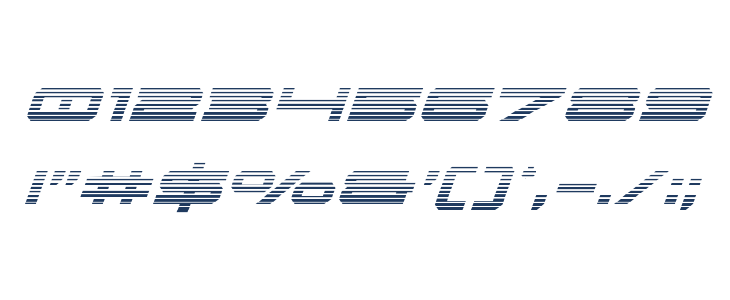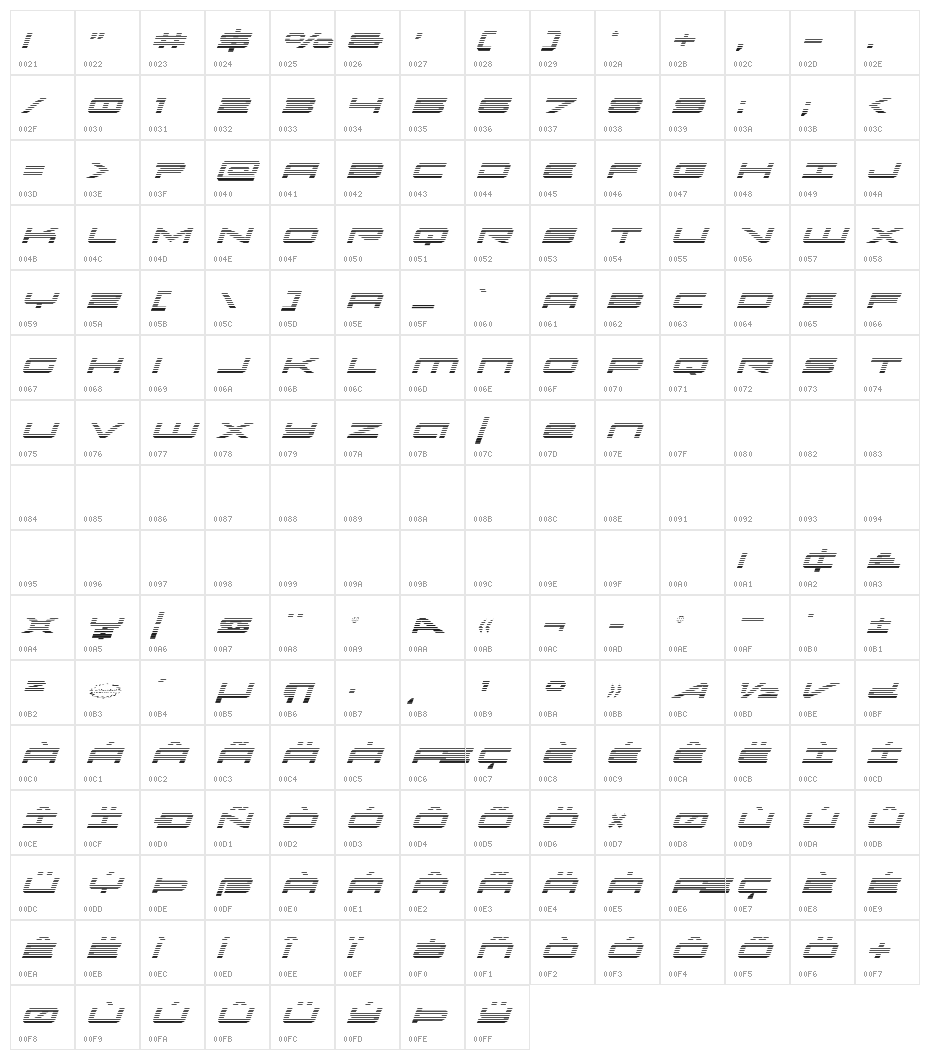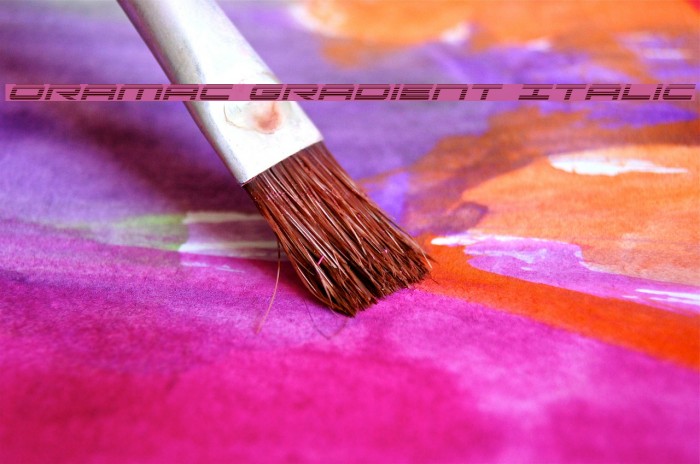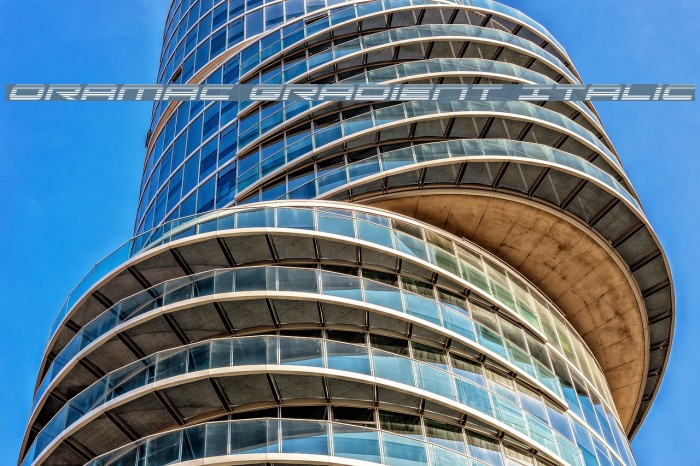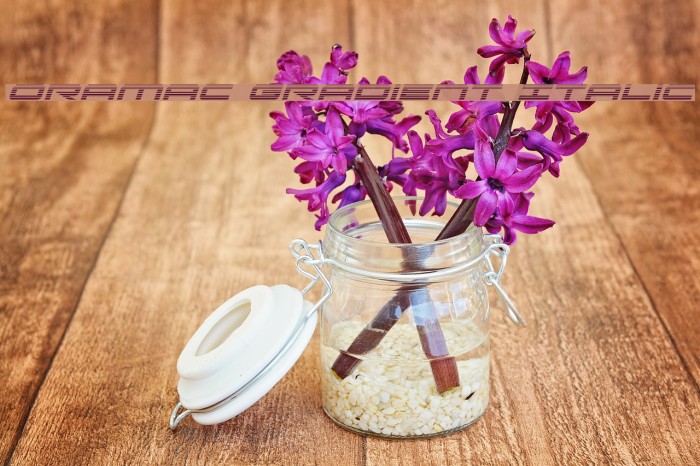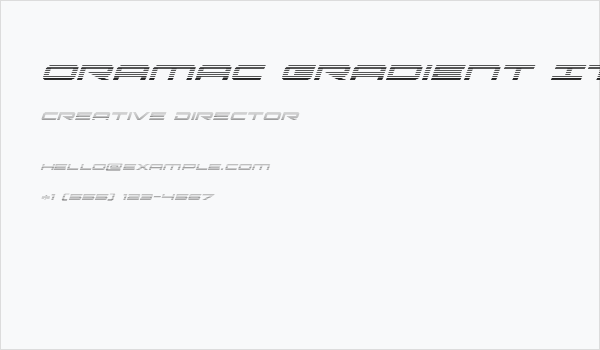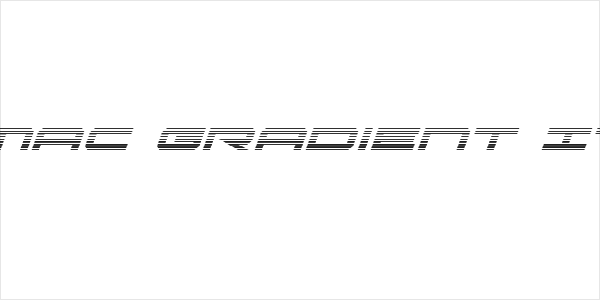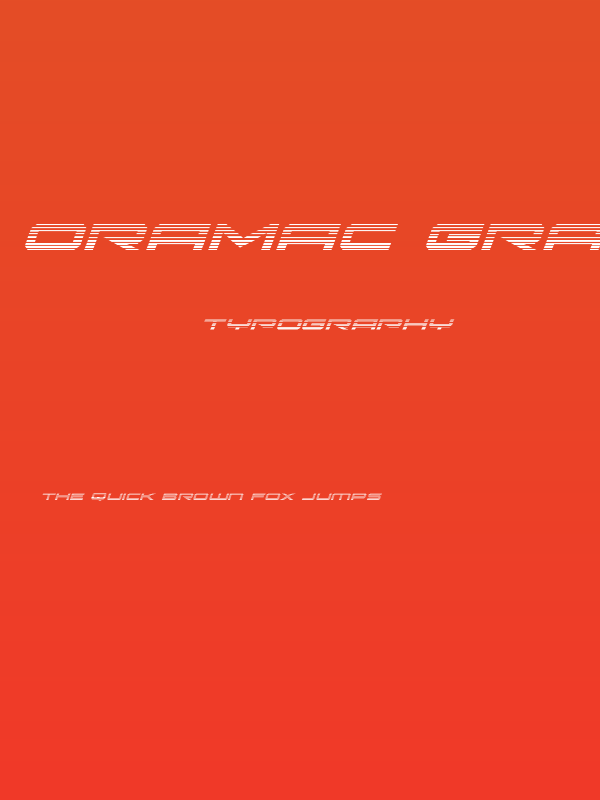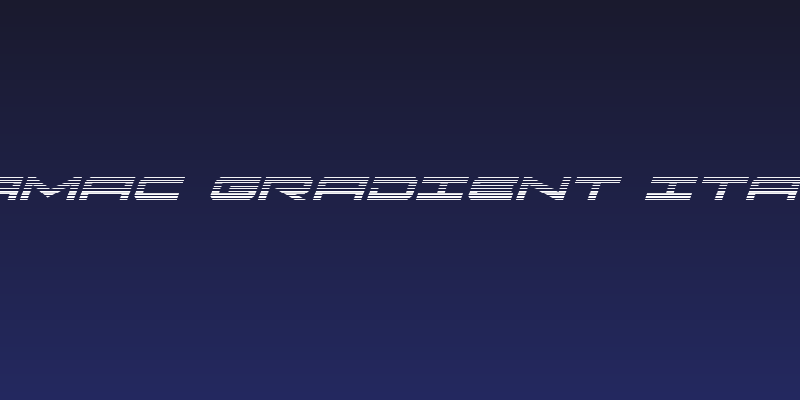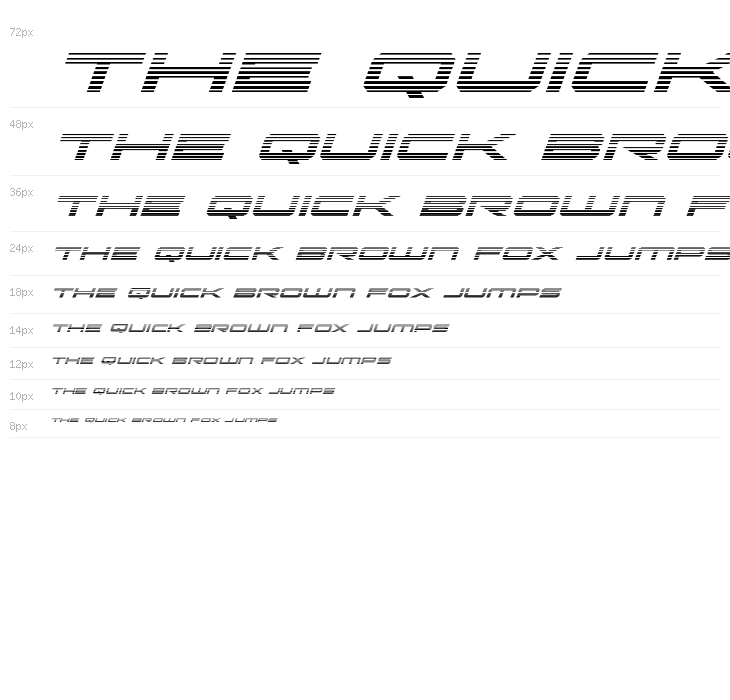
Oramac Gradient Italic Font
Oramac Gradient Italic Description
This font features a modern, futuristic design with a distinct gradient effect across each character. The italicized style adds a sense of motion and dynamism, making it ideal for projects that require a contemporary and edgy look. The characters are composed of multiple horizontal lines, creating a unique striped appearance that enhances its visual appeal. The uppercase and lowercase letters maintain a consistent style, while the numerals and special characters complement the overall design. This font is perfect for use in digital media, technology branding, and creative projects that aim to stand out.
| Proposed Projects | Ideal for digital media, technology branding, and creative projects. |